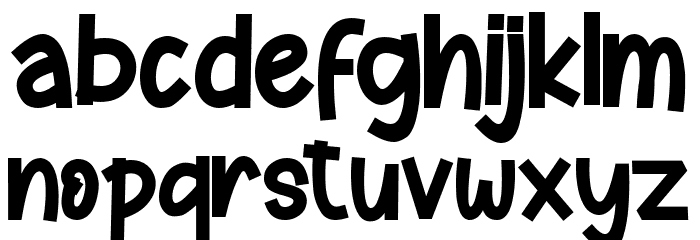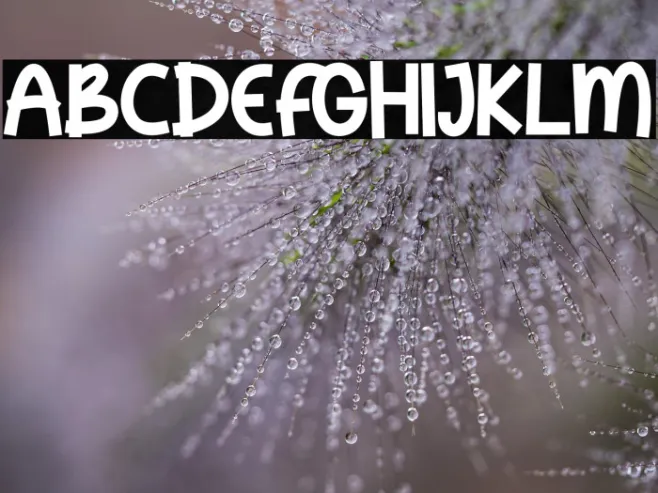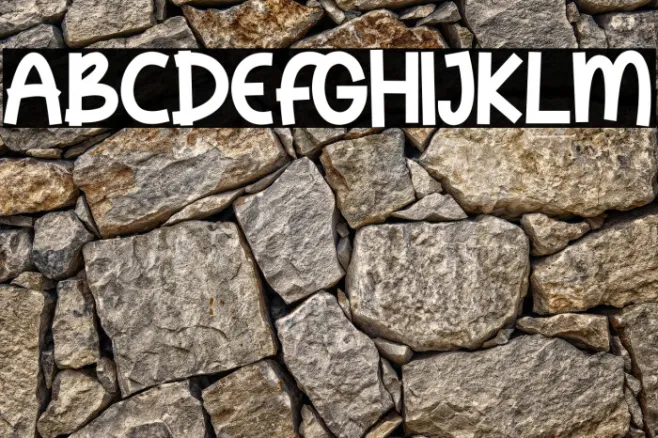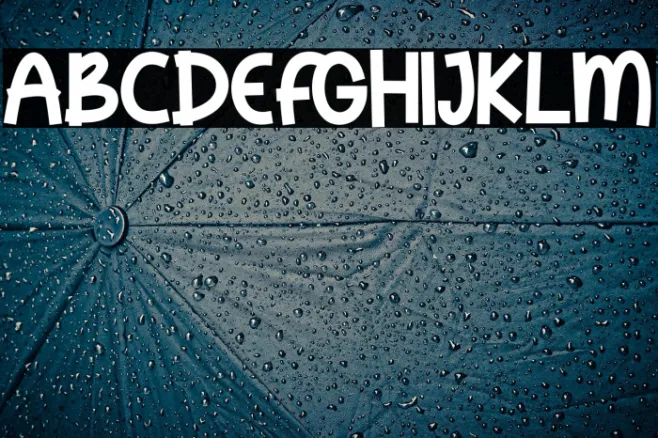
Tulis Yuk Font
This font features a playful and bold style, characterized by its thick strokes and slightly irregular shapes. The letters have a hand-drawn appearance, giving them a whimsical and informal feel. The uppercase and lowercase letters maintain a consistent weight, while the numbers and special characters complement the overall aesthetic. The font's unique charm makes it suitable for projects that require a fun and engaging visual element.
A playful, bold font with a hand-drawn, whimsical style.
- Font: Tulis Yuk
- Proposed Projects: Ideal for children's books, playful branding, posters, and greeting cards.
- Overall Style: Playful, Whimsical